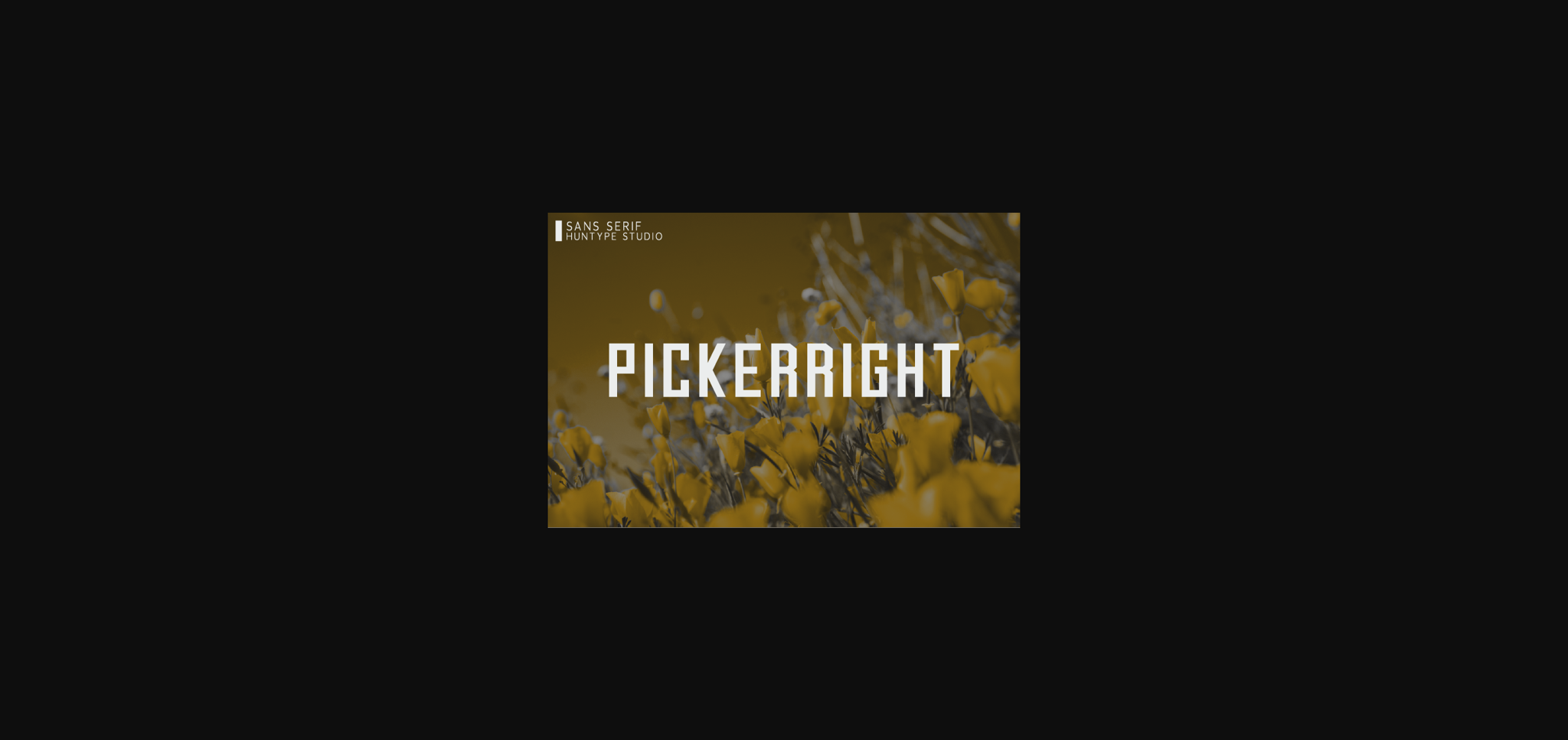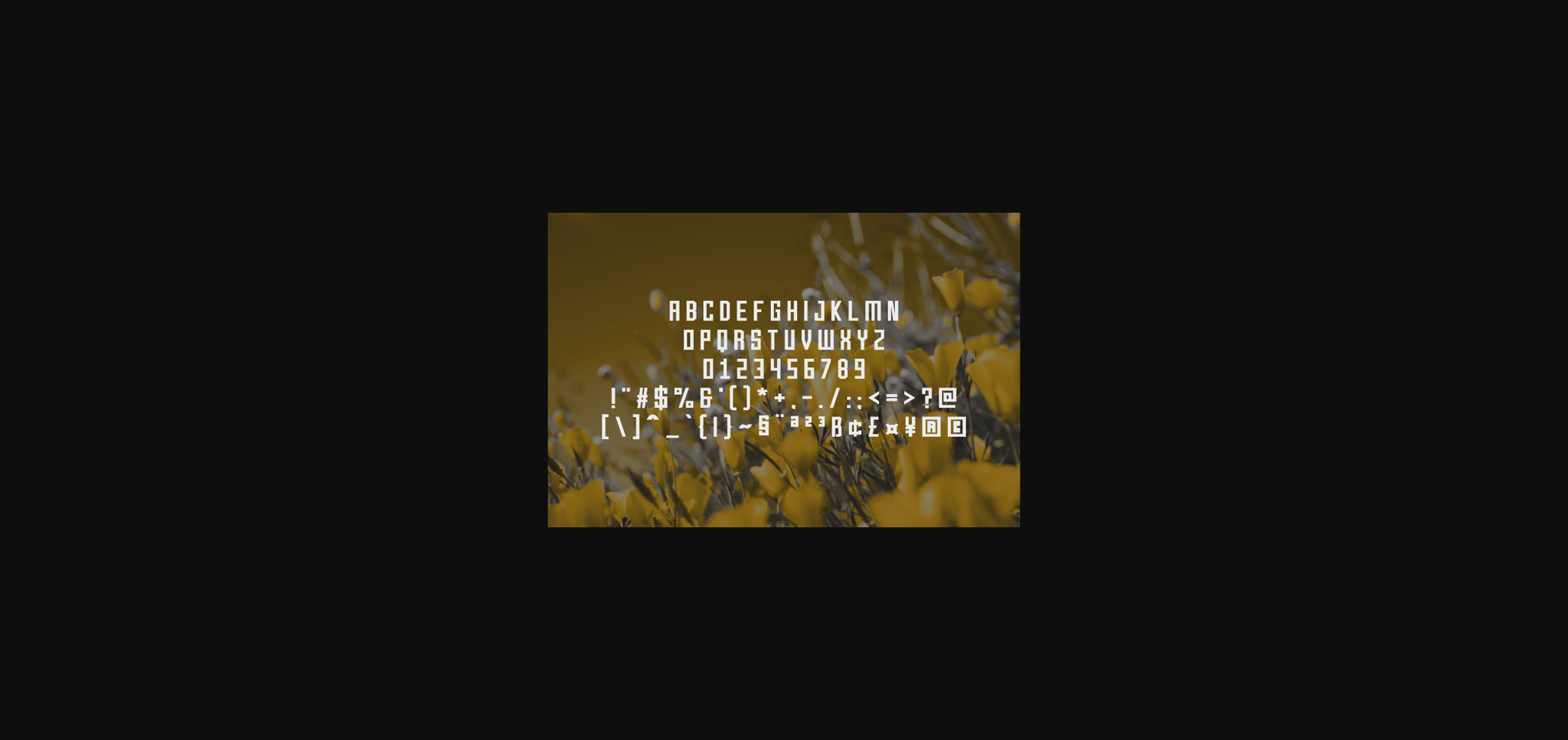
Pickerright Font
About Pickerright Font
Pickerright is inspired by classic typography and brings its own unique style to any design project. Whether you’re looking for fonts for Instagram or calligraphy scripts for DIY projects, Pickerright will turn any creative idea into a true piece of art!